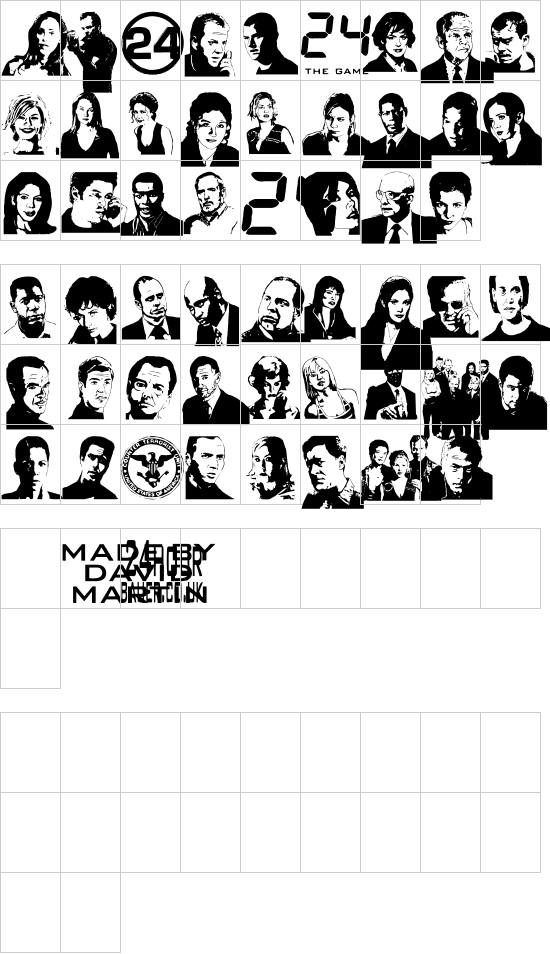
24hourbauer
About 24hourbauer
24hourbauer is a dingbat font offering a set of decorative symbols and small illustrations in place of letters. Each key delivers its own graphic shape, drawn in a tidy, consistent manner so the marks sit well together whether scattered as accents or featured at larger sizes.